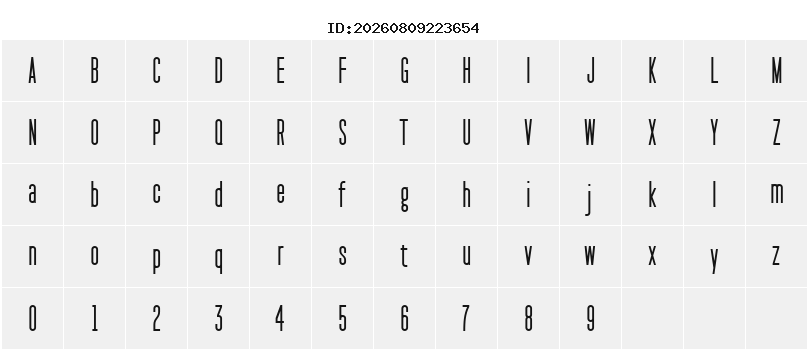
Pakt Condensed Preview
• Font Name: Pakt Condensed
• Font Style: SemiBold
• Font ID: Pakt Condensed SemiBold
• Full Font Name: Pakt Condensed SemiBold
• Designer: Michael Cina
• Manufacturer: YouWorkForThem
About Pakt Condensed.ttf
Pakt Condensed.ttf is a modern, elegant sans-serif font designed for ultimate readability and visual harmony. Perfect for branding, headlines, web design, and print materials.